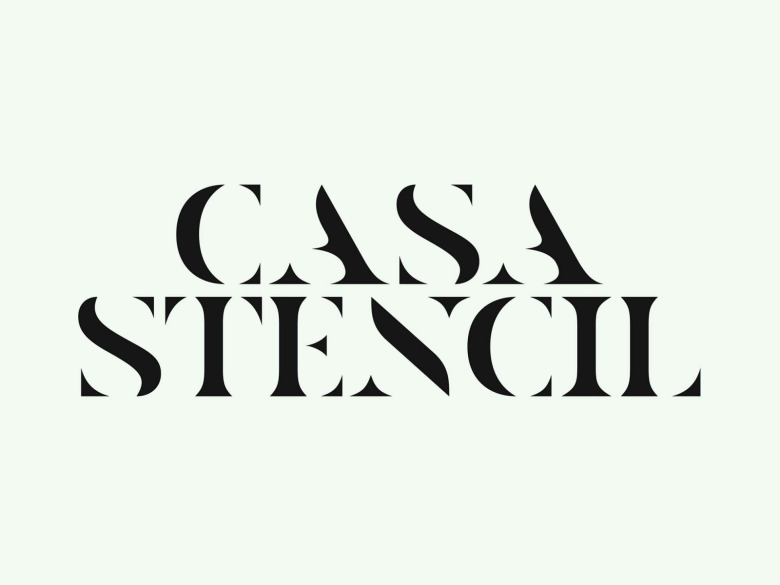
Casa Stencil Typeface
Hi Designer! I was very happy to see this fonts, it was perfect. You will have many choice of fonts for your design. Introducing Casa Stencil. It is designed and shared by Pangram Pangram. Casa Stencil is a beautiful, elegant stencil font that features soft curves and a sense of erosion. Its presence will definitely make your designs unique. It is made for all your title and logo needs.